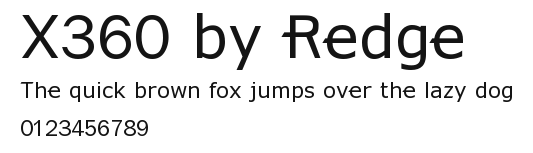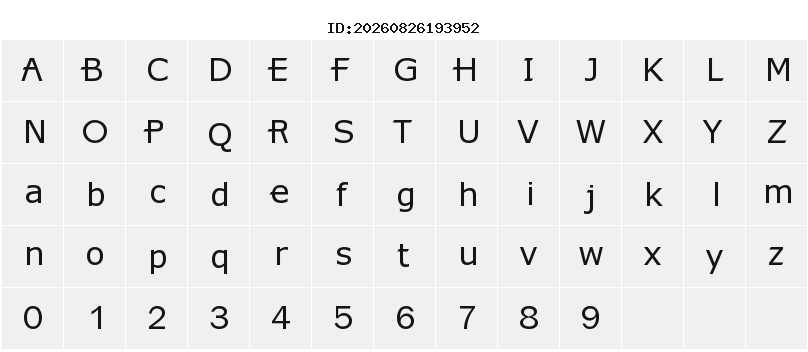
X360 by Redge Preview
About X360 by Redge.ttf
X360 by Redge.ttf is a modern, elegant sans-serif font designed for ultimate readability and visual harmony. Perfect for branding, headlines, web design, and print materials.